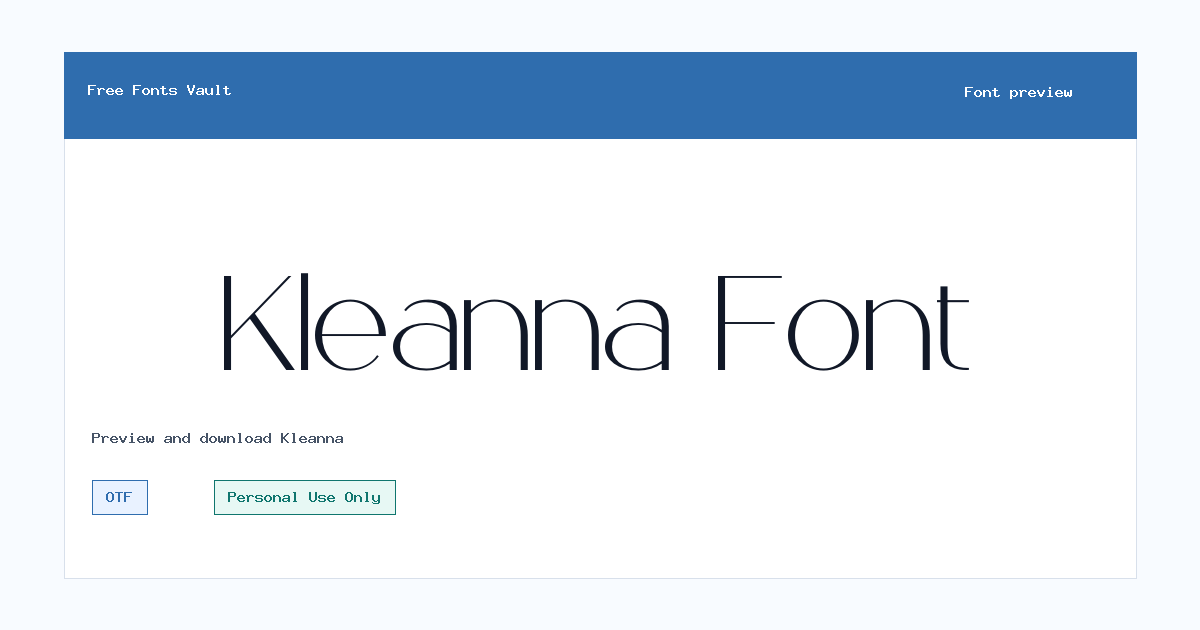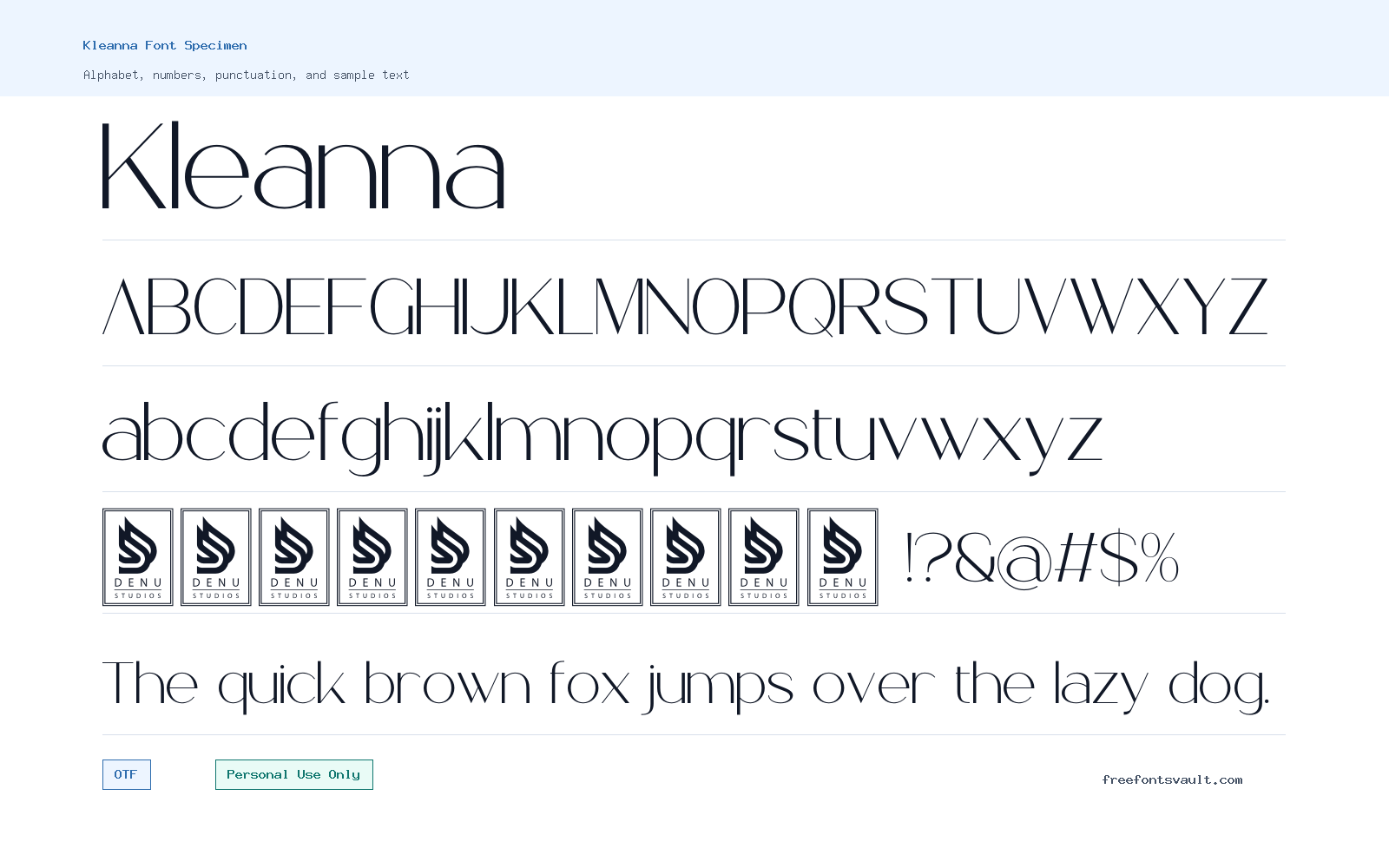
Kleanna
- Designer Dede Nugraha
Kleanna font.
Kleanna is a clean sans serif font with a simple, modern feel. It works best when you need a neat display style for personal projects, mockups, headings, and short pieces of text.
About Kleanna Font
Kleanna has the kind of straightforward sans serif look that fits design work where clarity matters. The regular style keeps the page from feeling too decorative, so it can sit comfortably in title treatments, social graphics, portfolio samples, invitation drafts, and early branding concepts. Because the available font file is a regular OTF style, it is easiest to test Kleanna first in normal-weight text rather than expecting a full family with bold, italic, or multiple weights.
- Simple sans serif style that is easy to test for headings, mockups, and short display text
- Single regular style, making it best for focused layouts rather than complex typographic systems
- Personal logo drafts and branding mockups
- Headlines, posters, and social media graphics
- Portfolio concepts, mood boards, and presentation titles
- Short labels, name cards, invitations, and clean display text
- Testing a modern sans serif look before choosing a commercial project font
What kind of projects is Kleanna good for?
Kleanna is a practical choice for personal headings, posters, social graphics, logo drafts, presentation titles, and other short text where a clean sans serif look is useful.
Does Kleanna include bold or italic styles?
Only one regular style is listed here. If your design needs bold, italic, or multiple weights, check the designer’s site for a larger family or pair Kleanna with another licensed font.